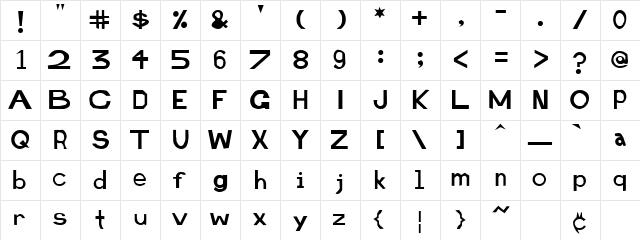
Spaz 1
Design Context for Spaz
Spaz is a composed and adaptable typeface that performs quietly and consistently across a wide range of design contexts.
Pro Tip: Use Spaz in both headline and body roles to test its range before committing to a single application.